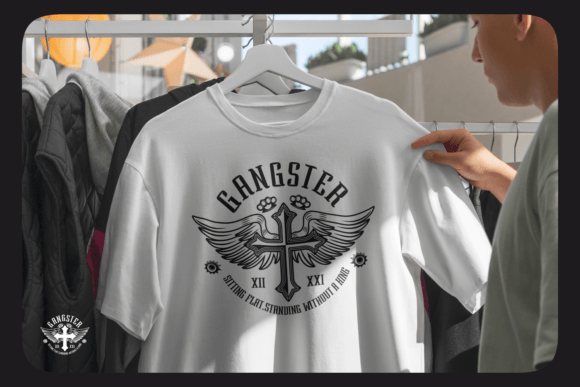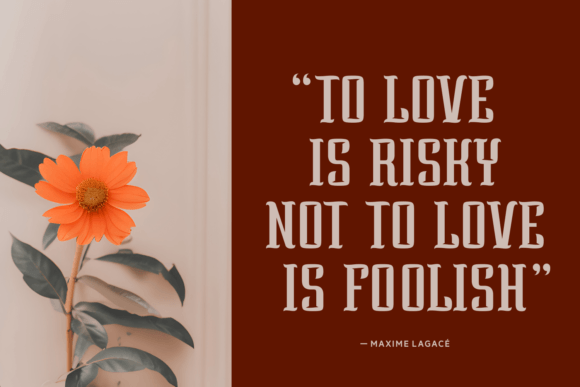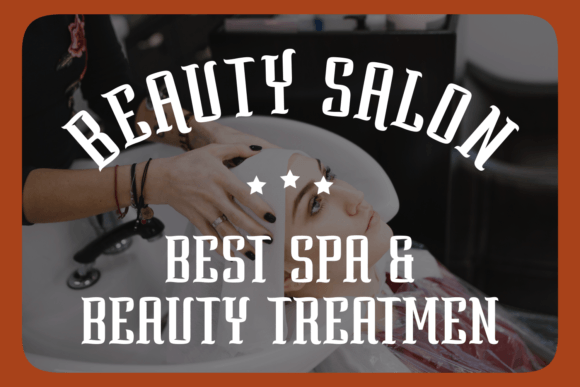
Introduction to Skinderd Font Font
Fonts play a crucial role in design, and the Skinderd Font font is a typeface that brings both character and versatility to any project. Whether you’re working on a branding project, a website, or a print design, the Skinderd Font font offers a unique style that can elevate your work.
Skinderd is a modern blackletter font.
Perfect to use in branding for traditional, luxury, or alternative markets, editorial design (newspapers, books), event posters (concerts, festivals), religious and spiritual contexts, tattoos and streetwear, packaging for luxury or craft products, fantasy, medieval, and historical themes, diplomas, awards, and certificates .
The Skinderd Font font is more than just a typeface – it’s a design tool that helps you communicate your message with style and clarity. Its unique character set and versatile design make it suitable for a wide range of applications, from elegant invitations to bold headlines.
With its carefully crafted letterforms and balanced proportions, the Skinderd Font font ensures readability and visual appeal across all mediums.
The Skinderd Font font stands out with its unique design, exceptional readability, and versatility across various design applications.